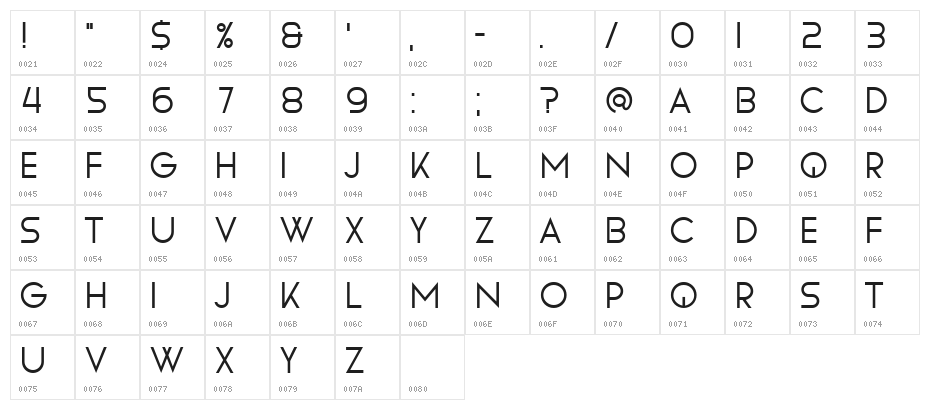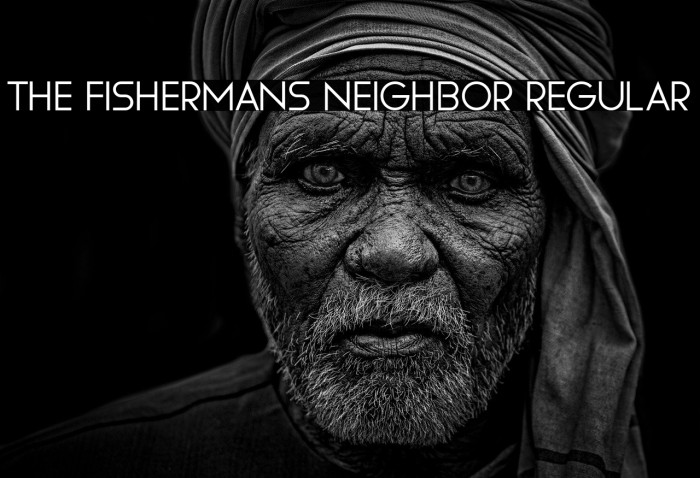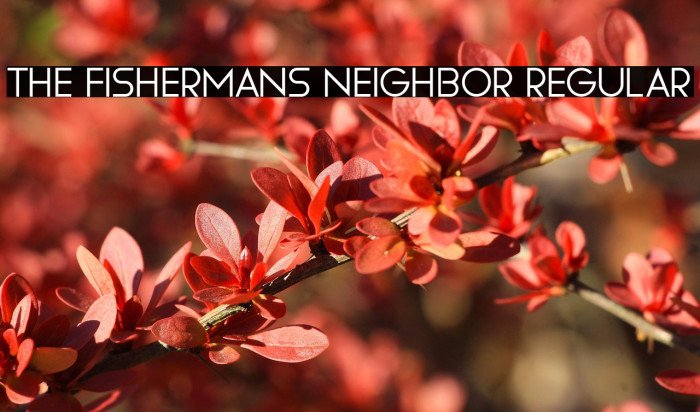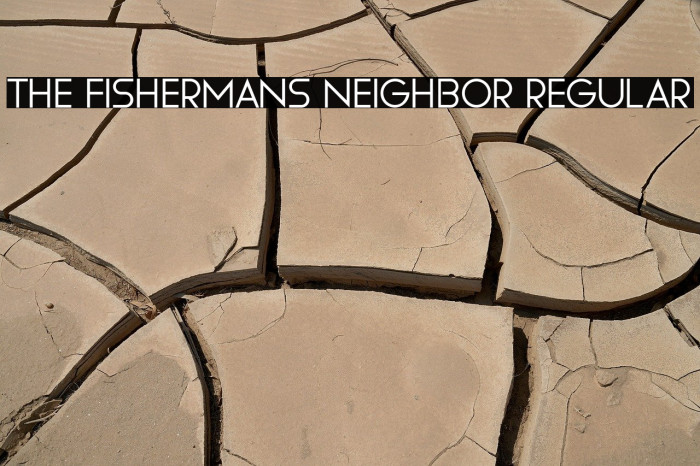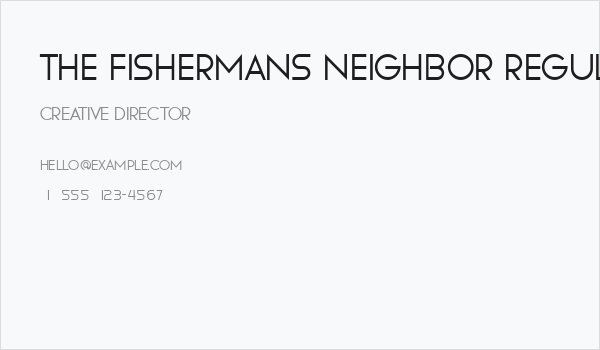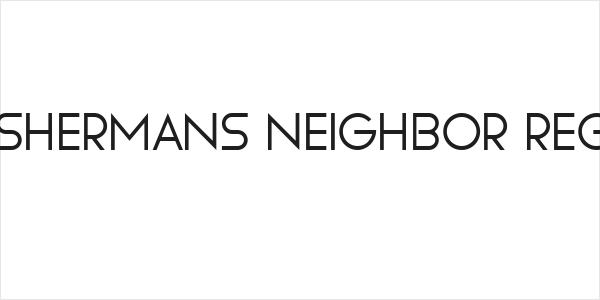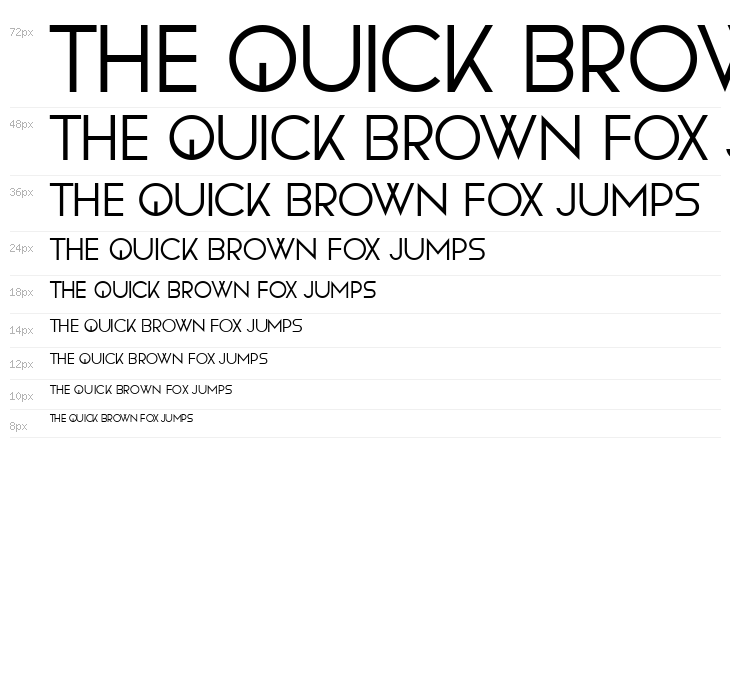
The Fishermans Neighbor Regular Font
The Fishermans Neighbor Regular Description
This font features a clean, geometric design with a modern aesthetic. The characters are crafted with uniform stroke widths, giving it a balanced and harmonious appearance. The uppercase and lowercase letters maintain a consistent style, with rounded edges and a slightly condensed form. The numerals are clear and legible, matching the overall sleek design. Special characters are included, maintaining the same geometric and minimalist style. This font is versatile, suitable for various design applications where a contemporary and professional look is desired.
| Proposed Projects | Ideal for branding, advertising, web design, and editorial layouts where a modern and professional look is required. |